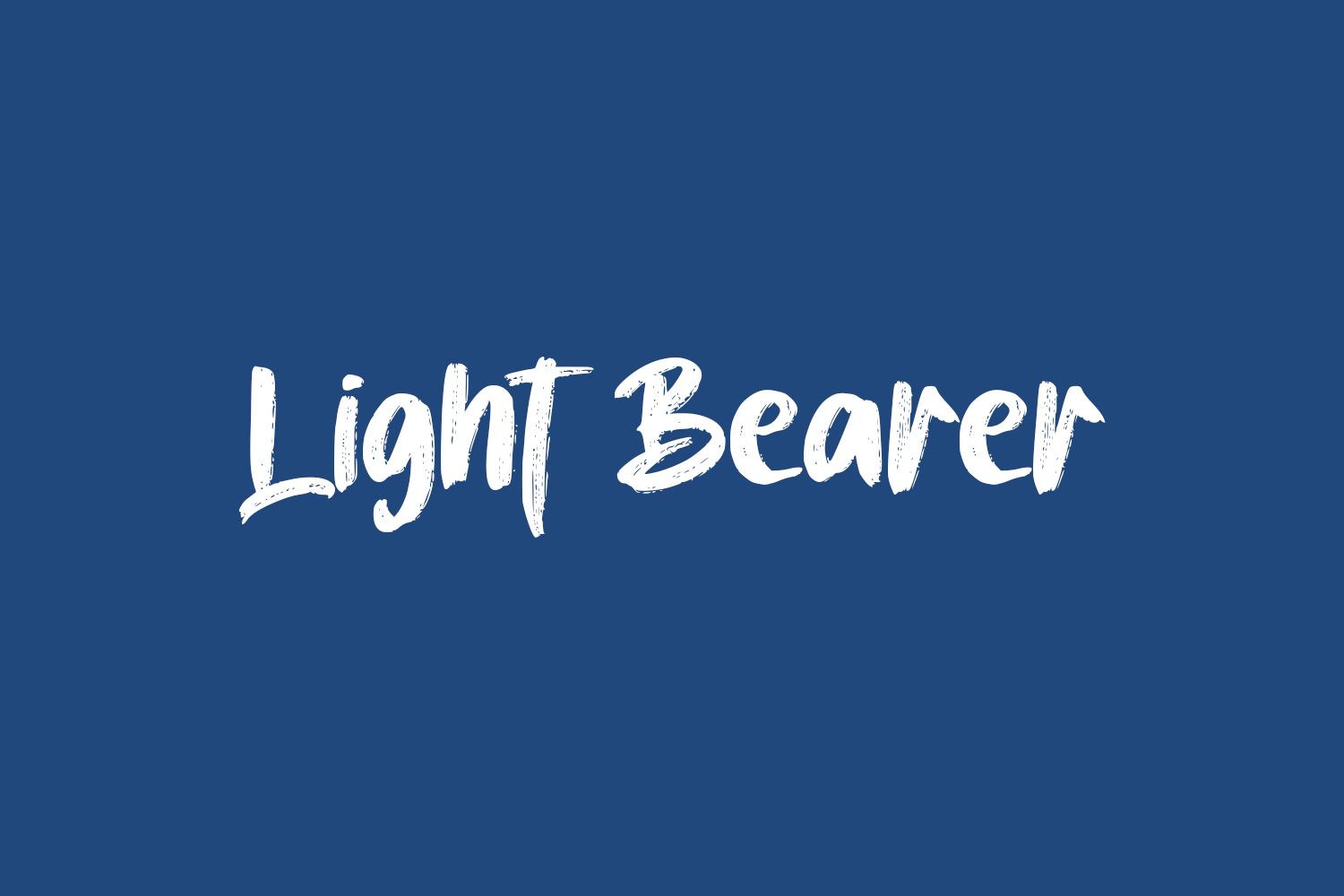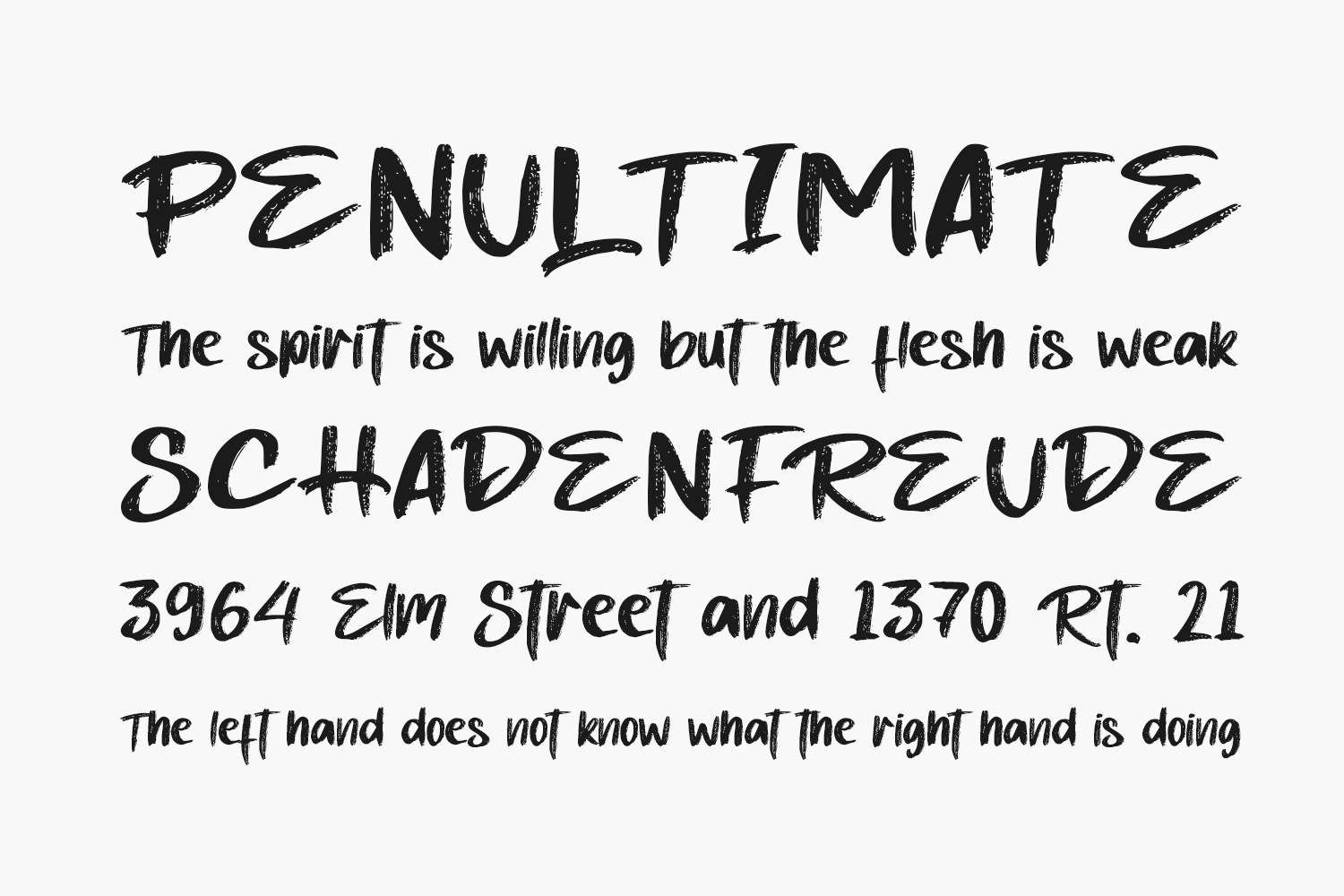
Light Bearer Free Font presents a stylish and meticulously crafted handwritten font, perfect for elevating your brand, enhancing labels, and creating eye-catching posters with a modern flair. Light Bearer Free Font is free for personal use only. Please purchase the full version for commercial use.
Designed by Letterara